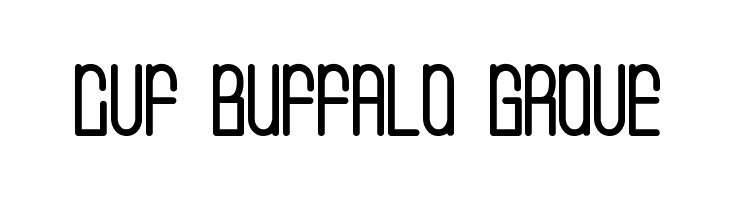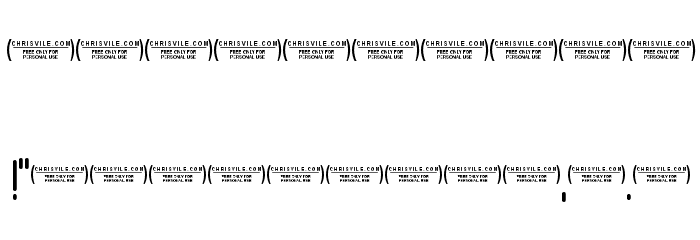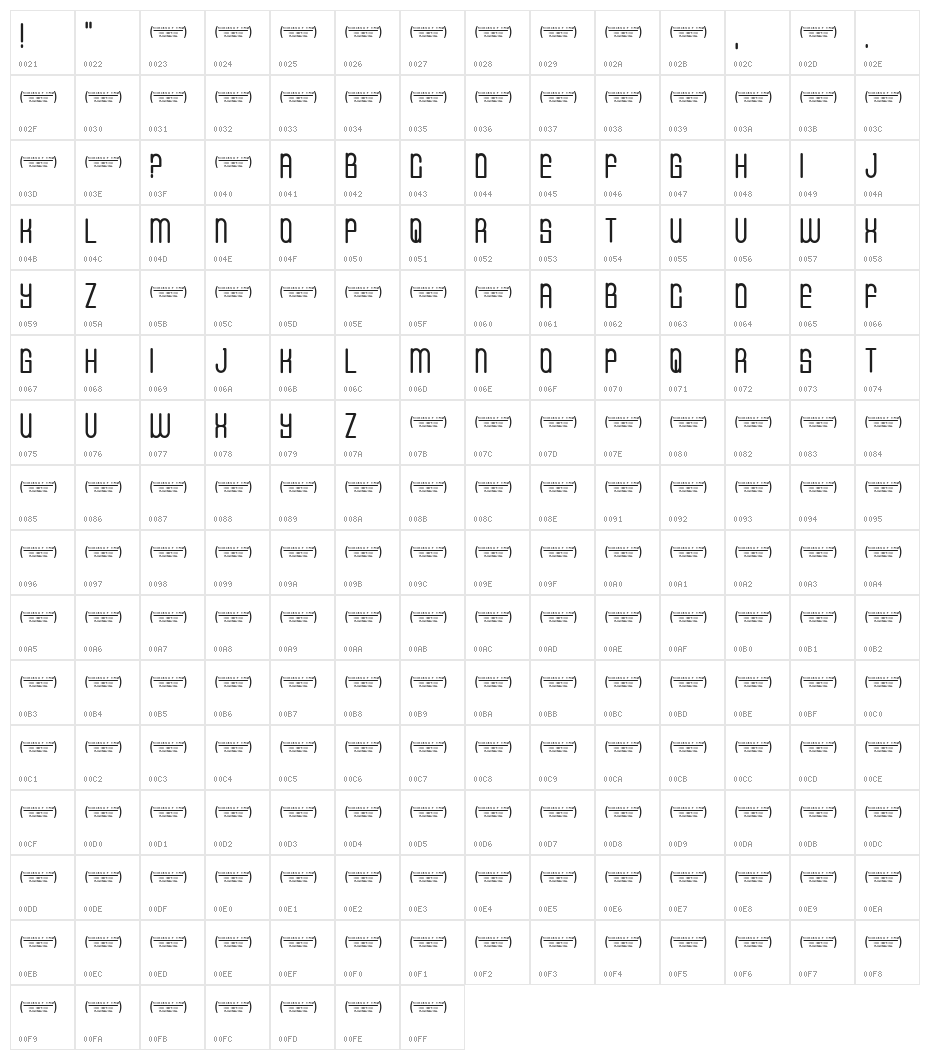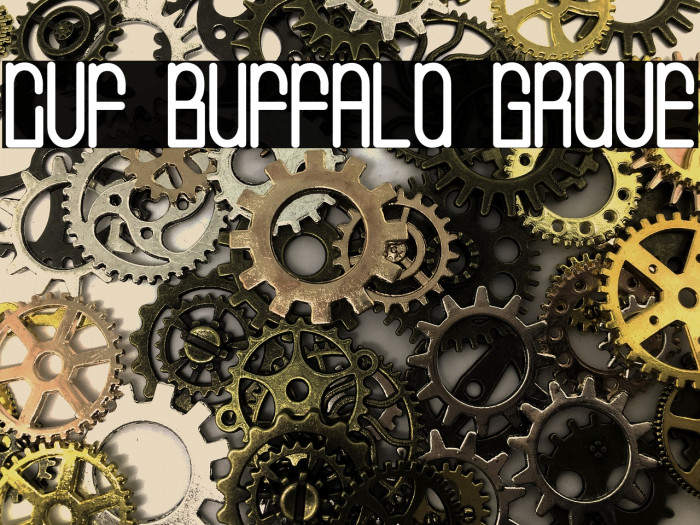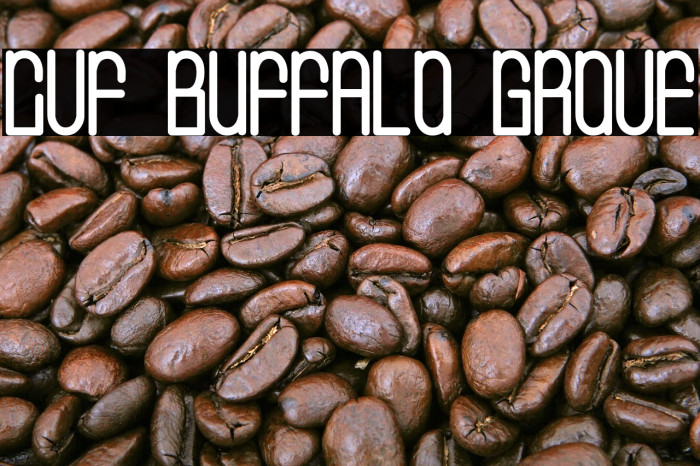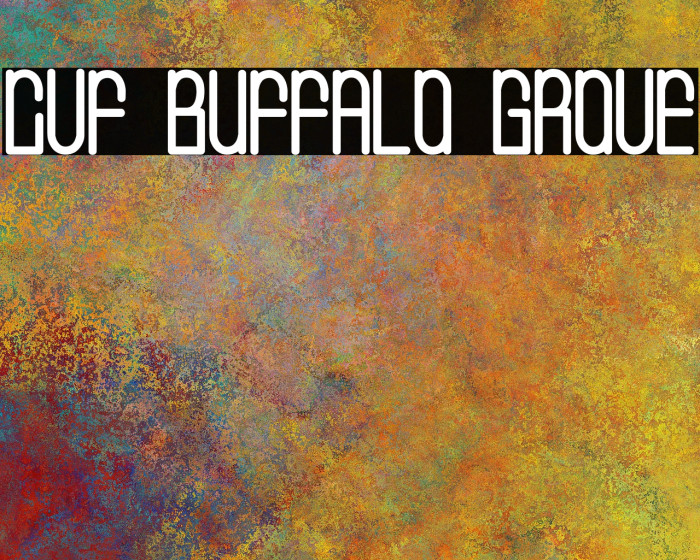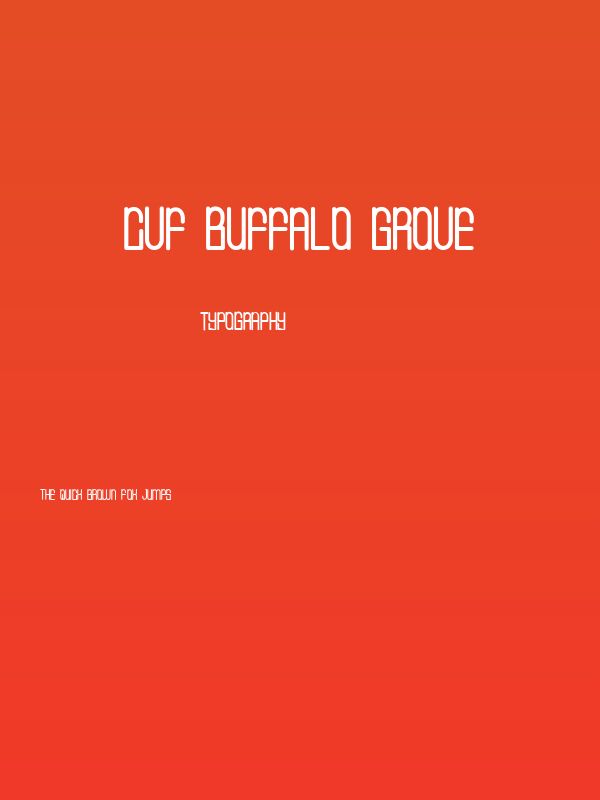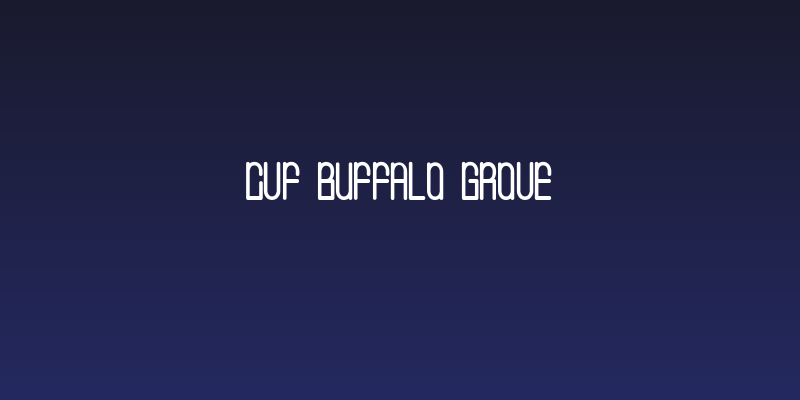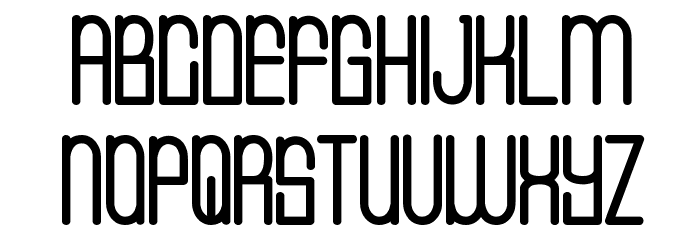
CVF Buffalo Grove Font
CVF Buffalo Grove Description
This font features a unique, modern design with rounded edges and a geometric structure. The uppercase letters are bold and uniform, creating a strong visual impact. The characters are slightly condensed, giving a compact appearance while maintaining readability. The font's clean lines and minimalistic style make it suitable for contemporary design projects. The special characters are consistent with the overall aesthetic, adding versatility to its use. This font is ideal for projects that require a modern and sleek look, such as branding, advertising, and digital media.
| Proposed Projects | Branding, advertising, digital media, packaging design, and modern web design. |